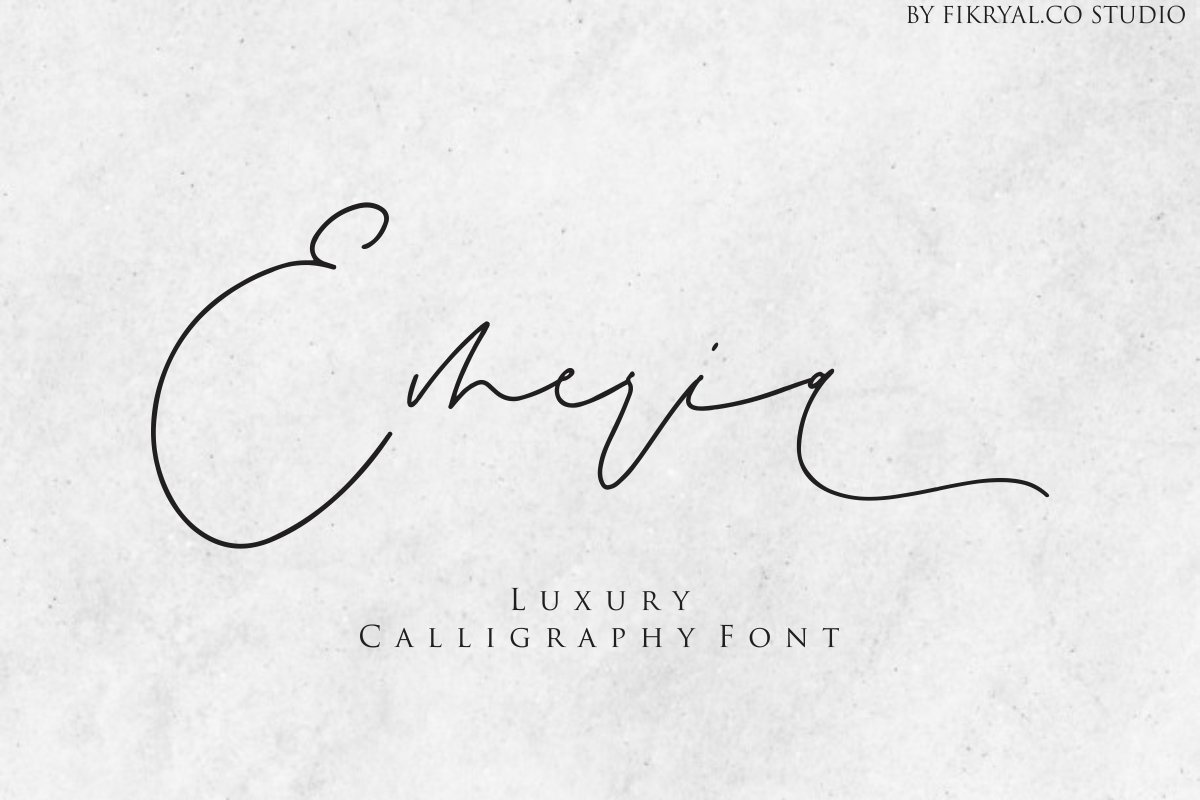
Emeria - Luxury Calligraphy
Emeria
Emeria - Font  is Calligraphy font.I'ts Perfect for logo,branding, invitation, tittle, wedding designs, social media posts,advertisements, product packaging, product designs, label, photography, watermark, special event,magazine,web design,etc.What's
• stylistic alternate 1
• stylistic alternate 2
• swash
• numeral & symbols